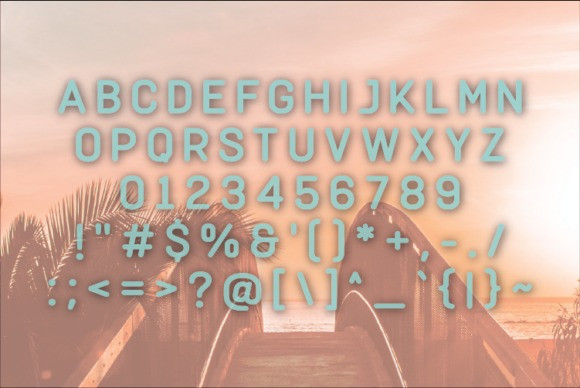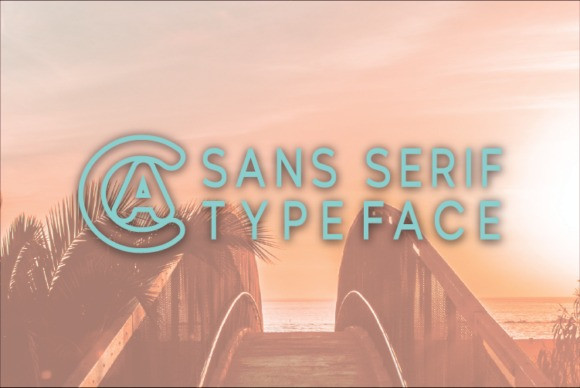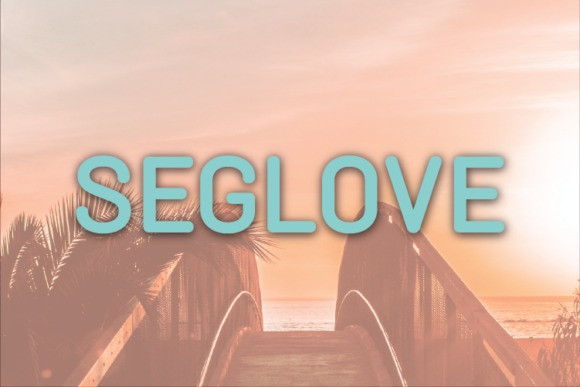
Seglove Font
Seglove Font, a modern and classy sans serif typeface. An extremely versatile font, perfect for logos, weddings, invitations, quotes, advertisements, print, magazines, and more!